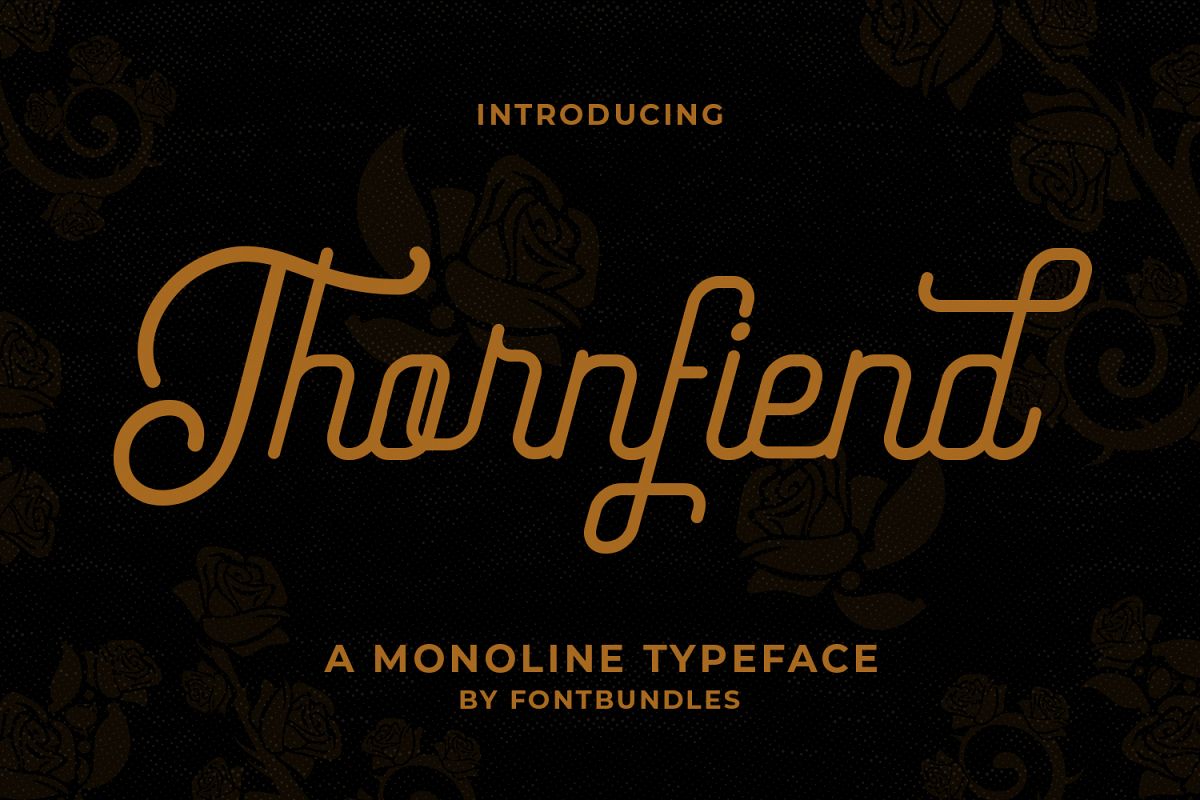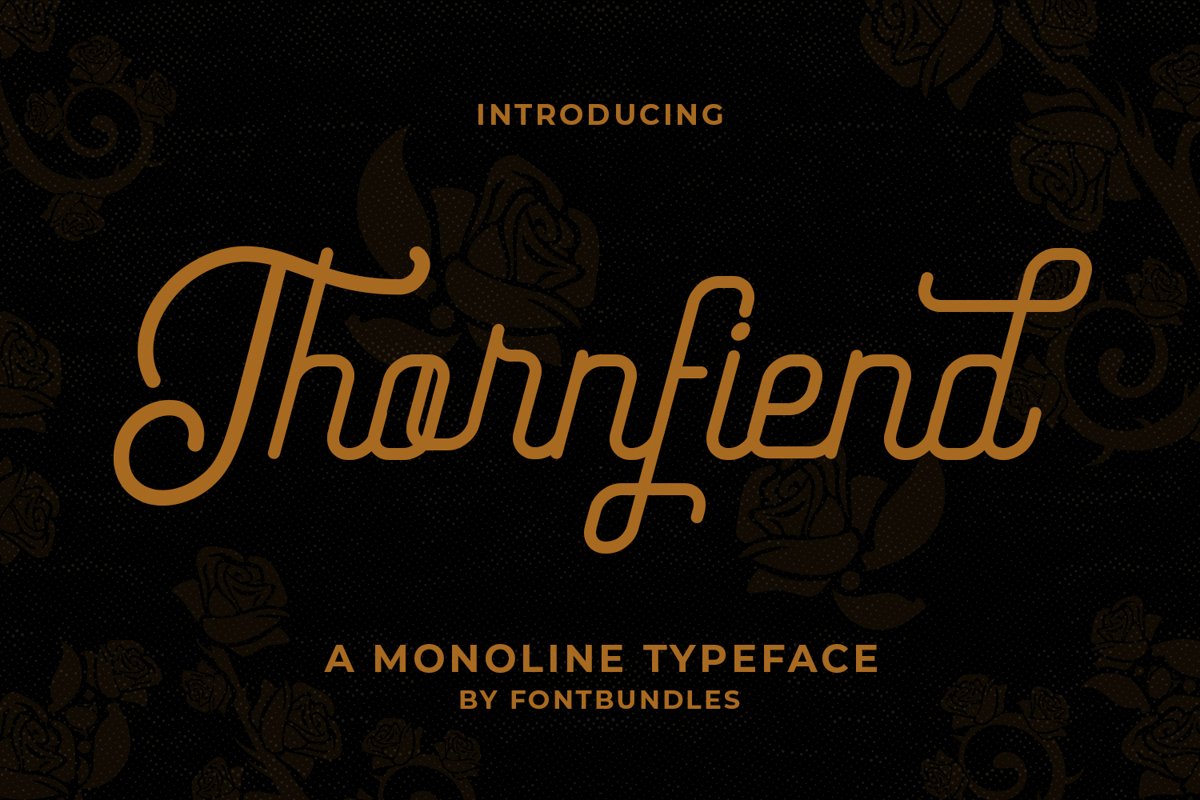
Thornfiend
Thornfiend is a monoline typeface. Perfect suitable for each of your projects, great for Logotype, Branding Design, Logo Design, Badges, Digital Lettering Arts, T-Shirt/Apparel, Poster, Magazine, Signs, Advertising Design, and manymore.